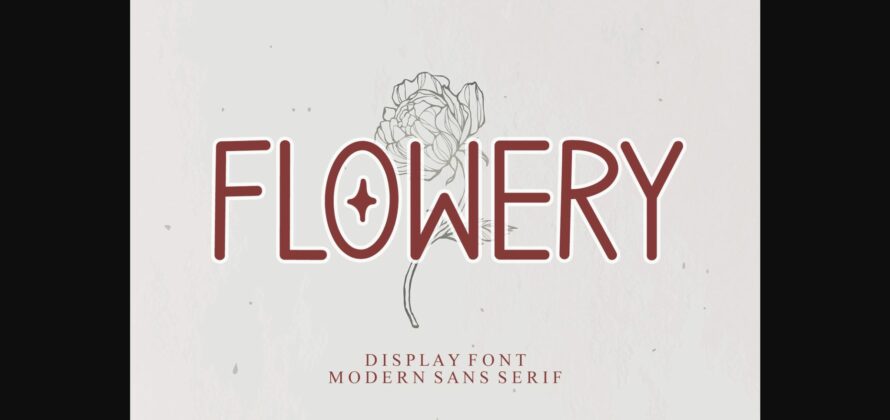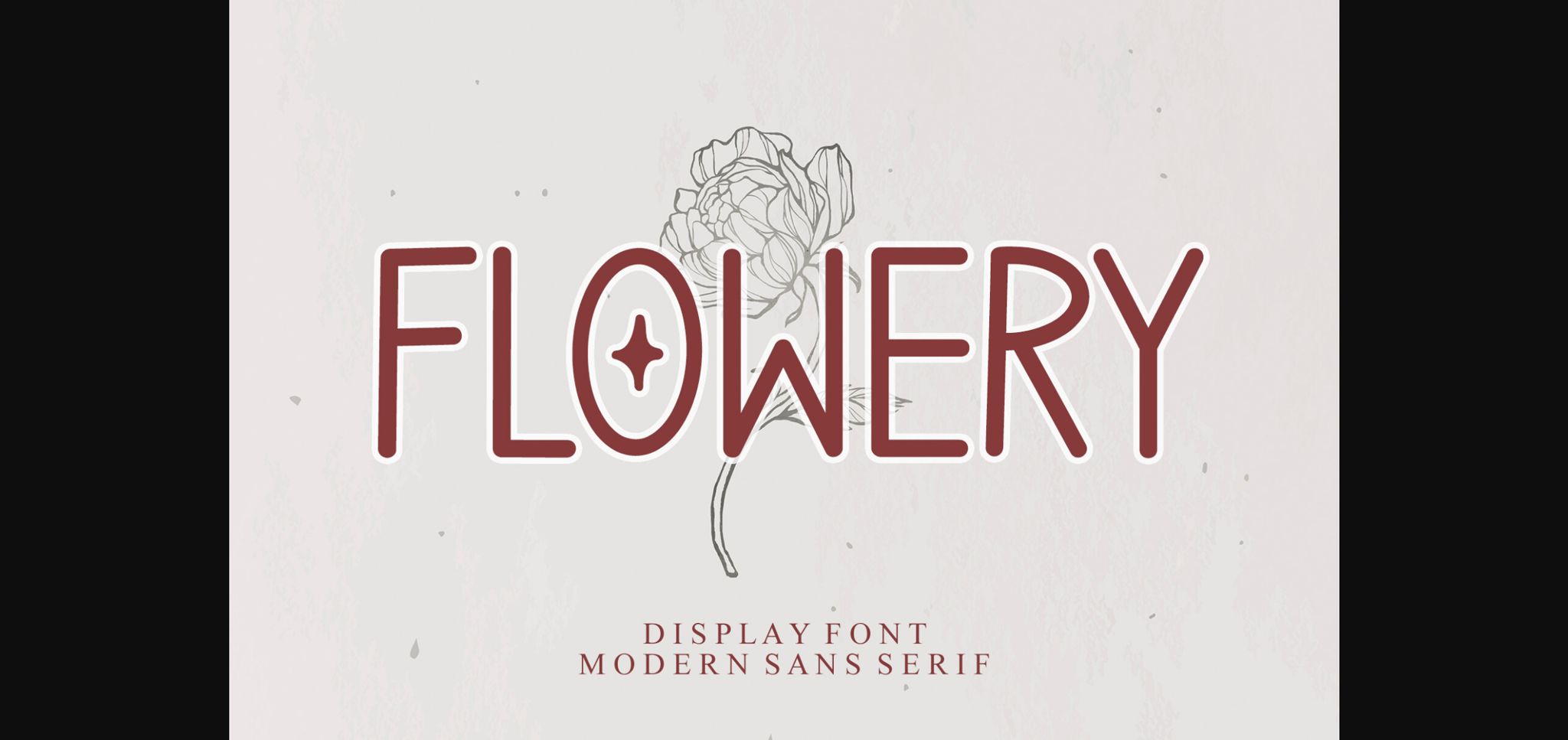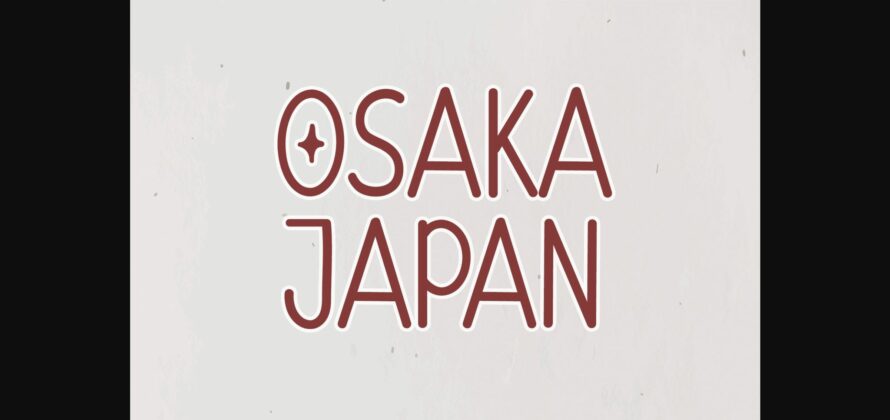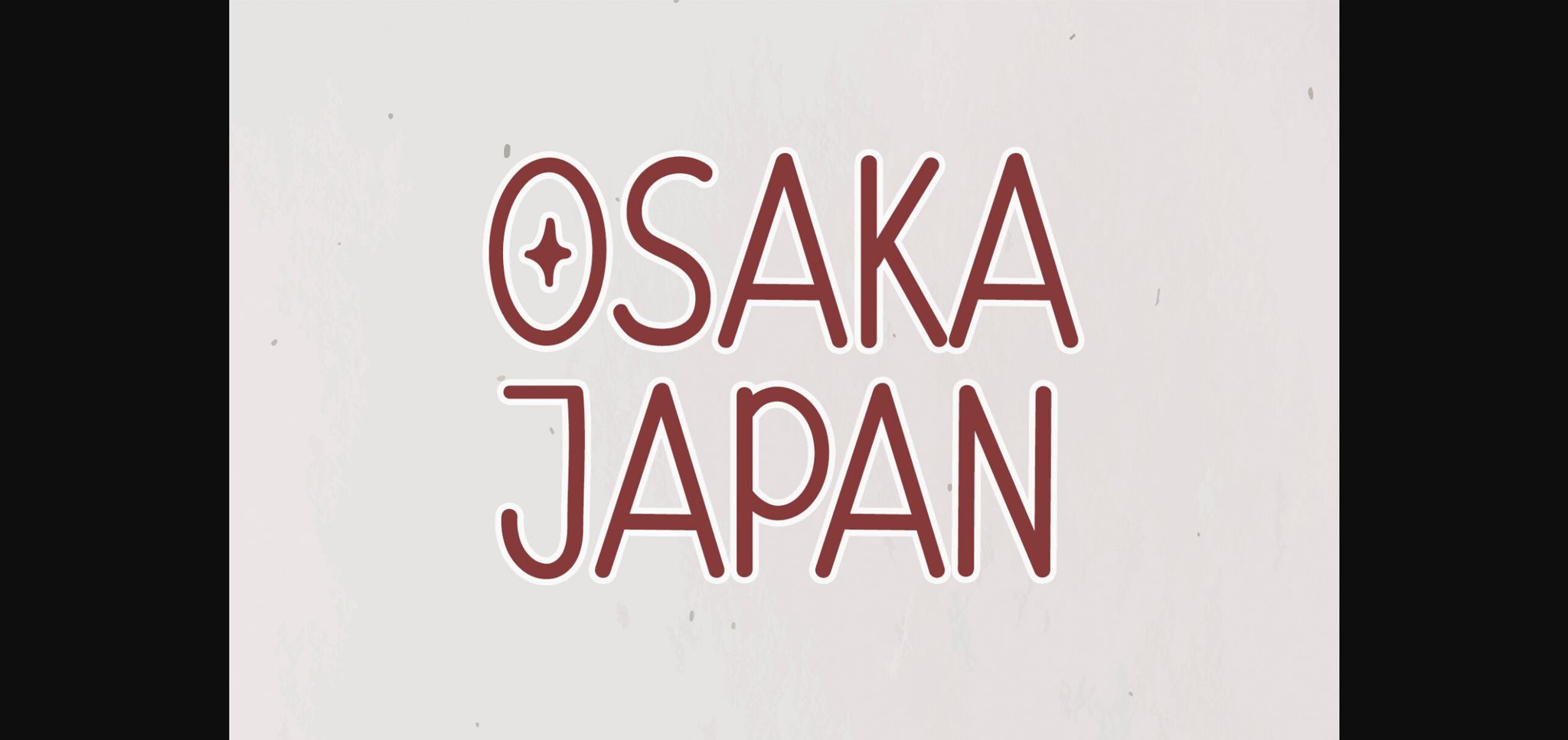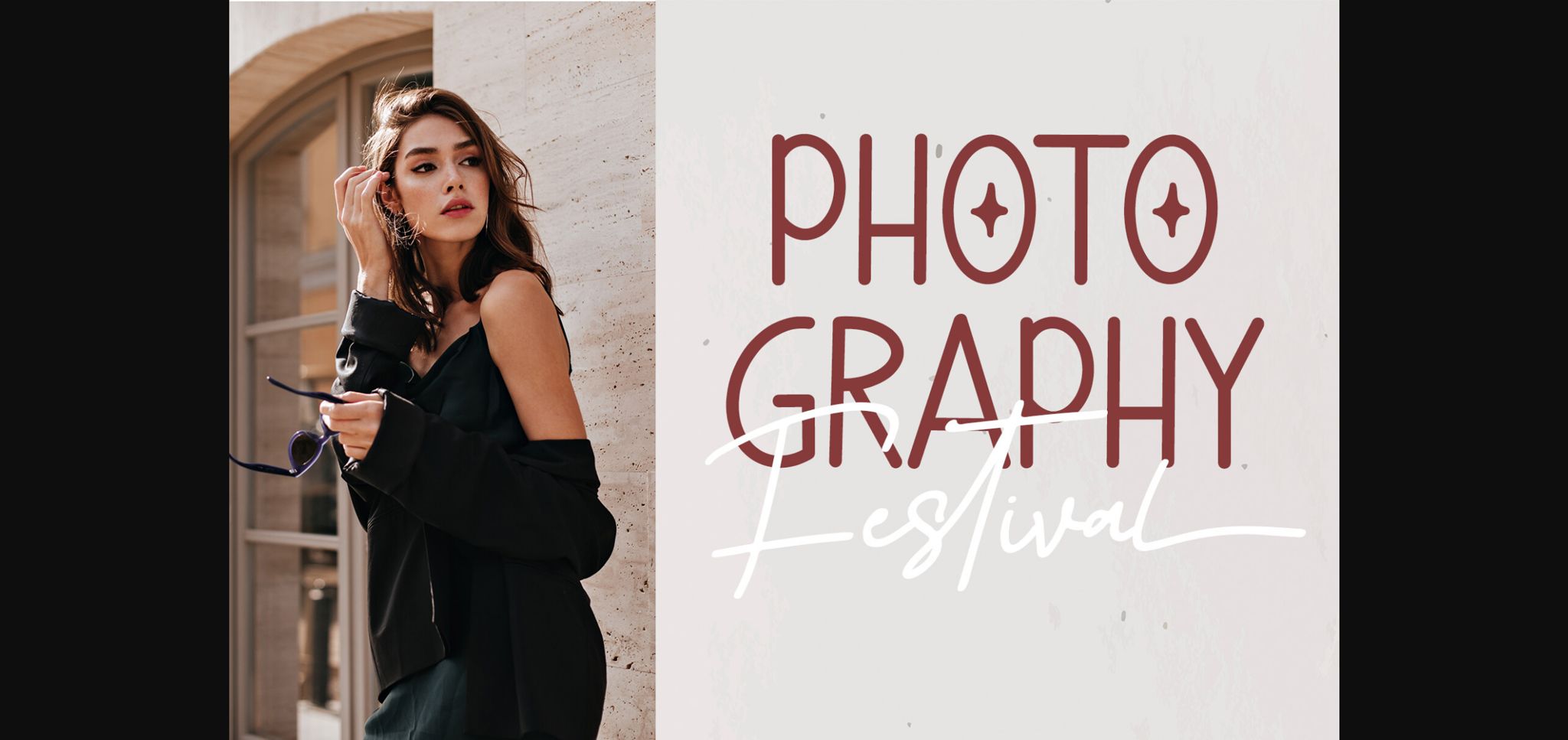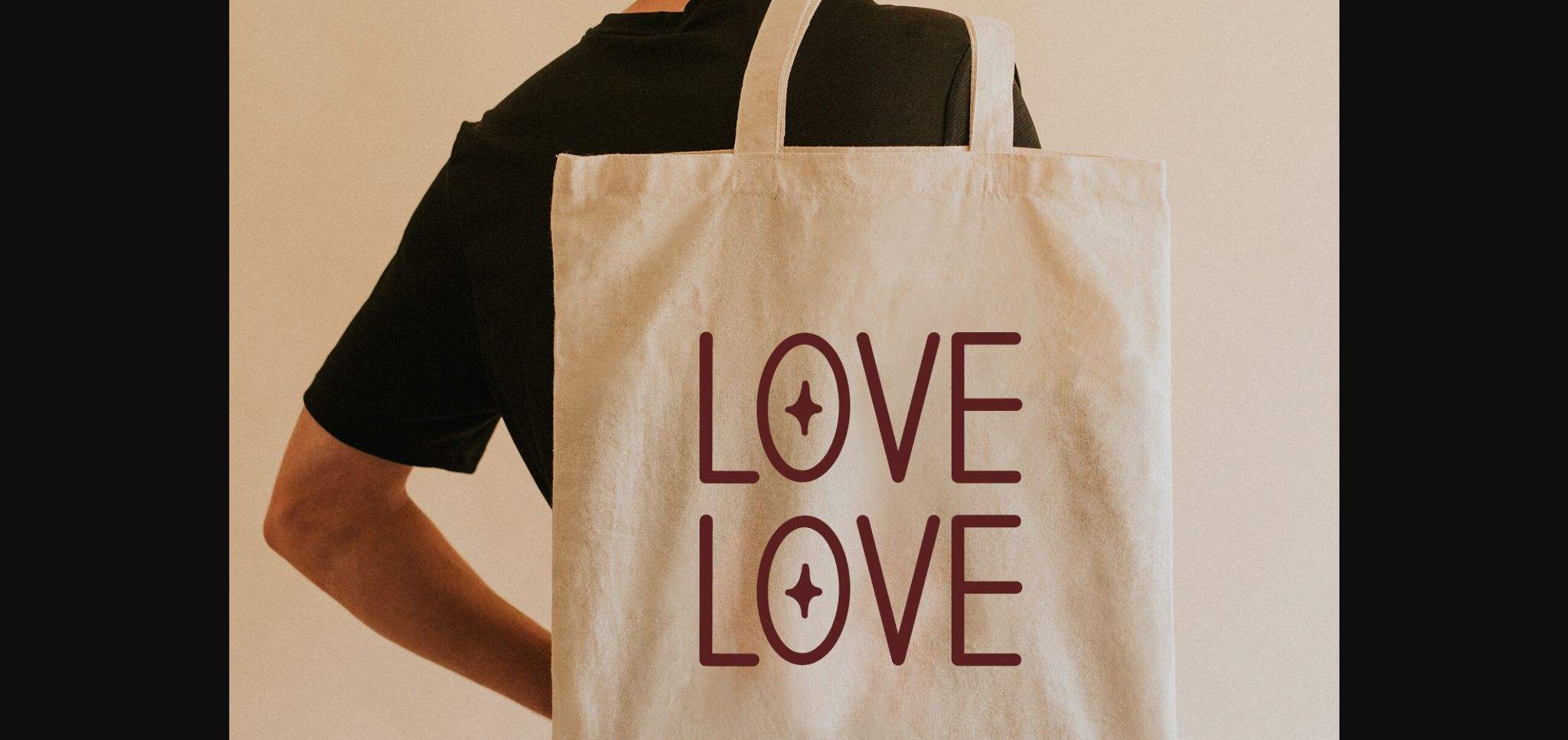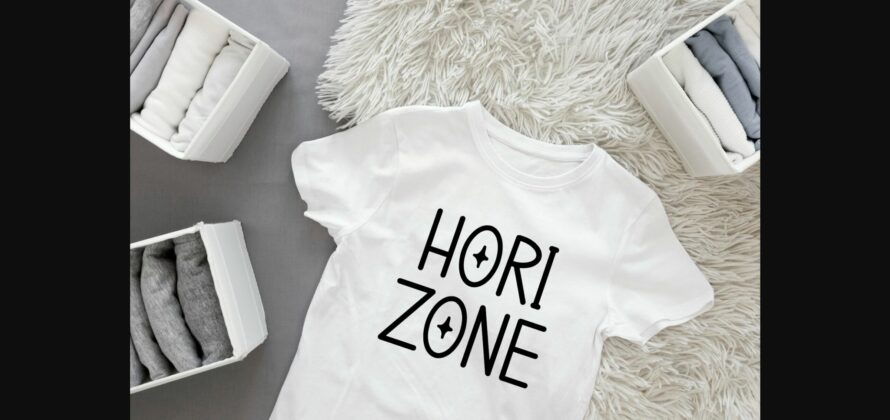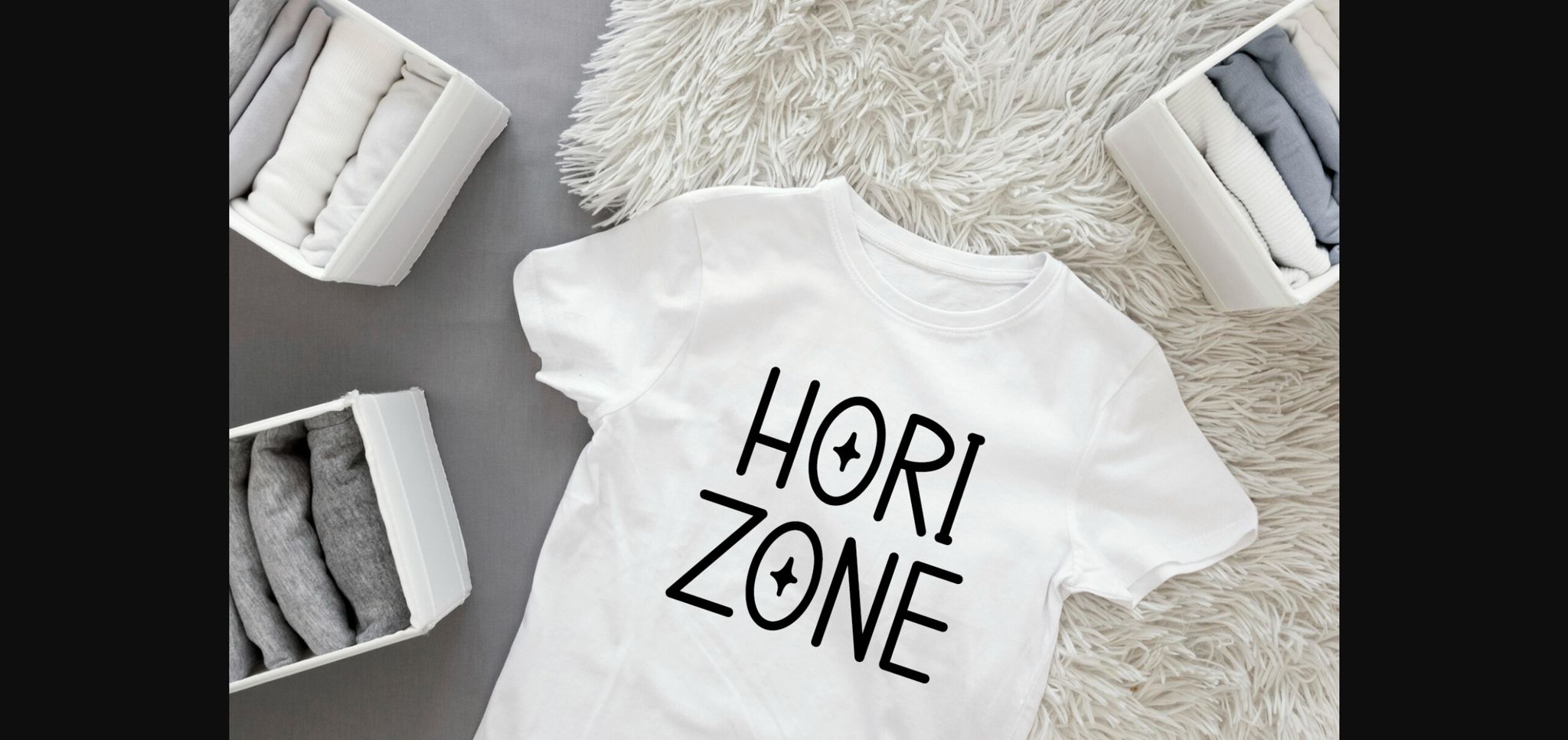
HomeSans Serif FontsFlowery Font Sans Serif Fonts Flowery Font FacebookXPinterestWhatsApp 1 of 7 ... Flowery Font Poster 2... Flowery Font Poster 3... Flowery Font Poster 4... Flowery Font Poster 5... Flowery Font Poster 6... Flowery Font Poster 7... About Flowery Font Flowery is a modern sans serif font. This font is perfect for logos, greeting cards, package design, brand identity, craft designs, any DIY projects, book titles, wedding invitations, packaging, and more. DOWNLOAD NOW People also explored Romanthis Font Amish Font Lulucon Marker Style Font Synthesia Font Badger Delight Font Redoura Font Cute Easter Font Black Love Font Lansonia Font 343 0 TagsFloweryFlowery Font Previous articleBlack FontNext articleBright Sunshine Font LEAVE A REPLY Cancel reply Comment: Please enter your comment! Name:* Please enter your name here Email:* You have entered an incorrect email address! Please enter your email address here Website: Save my name, email, and website in this browser for the next time I comment. Personal Use Free Where the Cookies Personal Use Free Read more about this font Hello Sister Personal Use Free Read more about this font Relic Island 2 Personal Use Free Read more about this font Moon Light Personal Use Free Read more about this font BLOG Using Fonts in Digital Marketing: Tips to Strengthen Your Brand Identity In the realm of digital marketing, every visual element plays a crucial role in shaping a brand's identity, and fonts are no exception. The... Best Fonts for T-Shirt Design – Top 2025 Picks How to Install and Use Fonts on Windows, macOS, and Web Projects Modern Sans-Serif Fonts That Brands Love in 2025